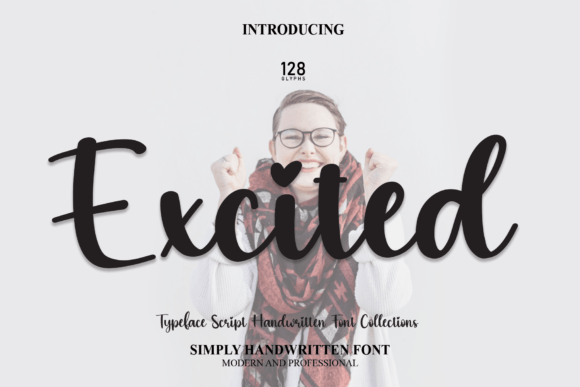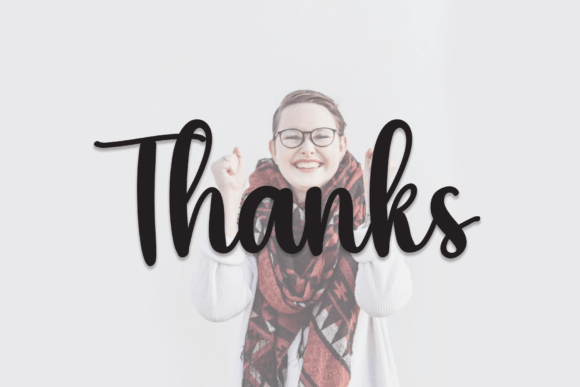
Excited Font
Excited is taking romantic to a whole new level is a font with hearts for dots—you can find them on characters like “i” and “j”.
It will add a joyful and romantic touch to each of your projects!  Perfectly fit for branding, logo, wedding things, greeting cards, fashion, lookbook, marketing promotion, anytime you want to look fancy elegant but still casual.